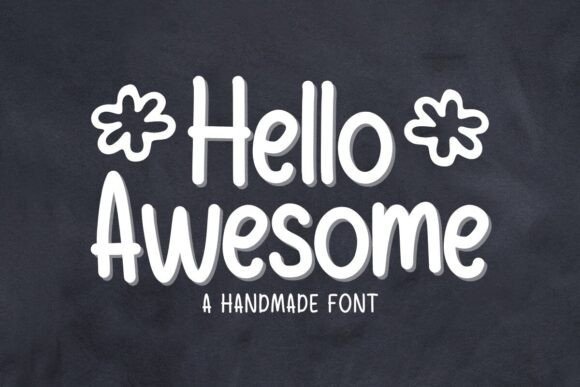
Introduction to Hello Awesome Font
Hello Awesome is a cute and unique sans-serif font described by an elegant touch, perfect for your favorite projects.
Fall in love with its incredibly distinct and timeless style, and use it to create spectacular designs .
Key Features of Hello Awesome Font
Why Choose Hello Awesome Font?
Hello Awesome Font offers exceptional quality and versatility, making it a valuable addition to your design toolkit. Whether you’re creating for personal projects or commercial use, Hello Awesome Font delivers professional results.